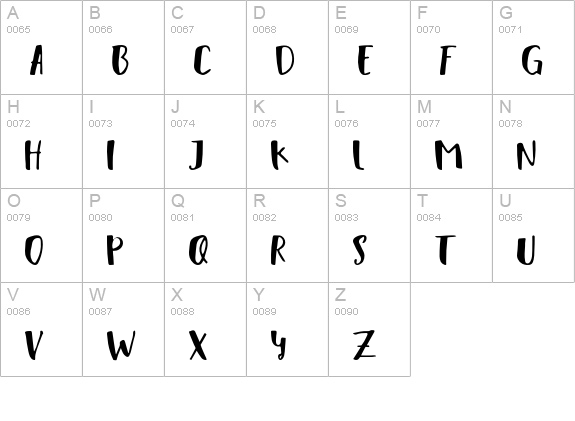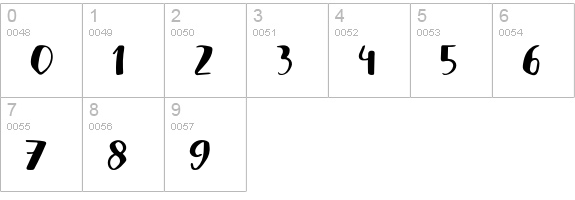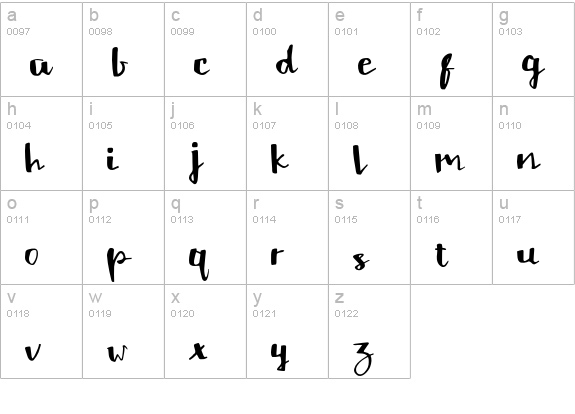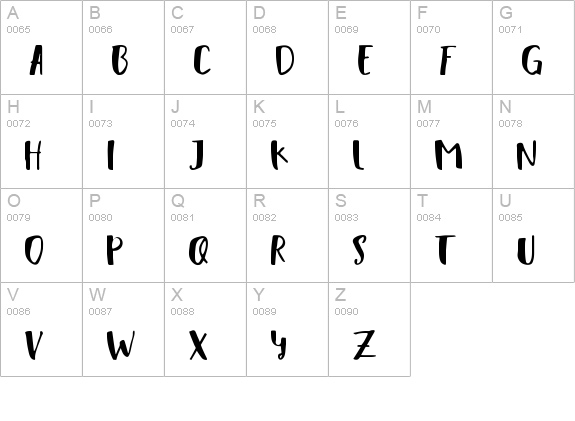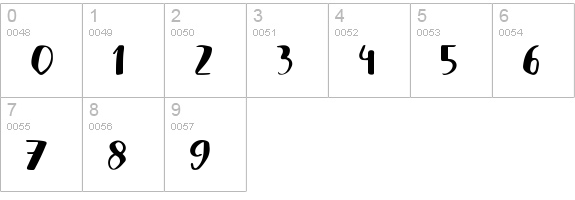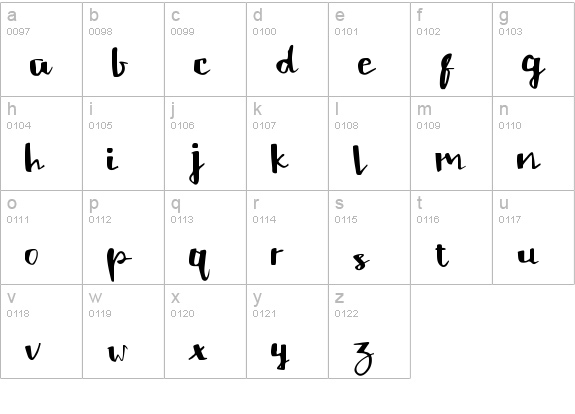
HelloListie Font Details
Introducing HelloListie font, a charming and versatile typeface designed to elevate your projects with a touch of elegance and flair. This beautiful font features delicate curves and stylish details that make it perfect for a wide range of creative endeavors. Whether you're designing invitations, branding materials, or social media graphics, HelloListie font is sure to add a sophisticated and modern touch to your designs. The best part? HelloListie font is available for free download at FontsMarket.com! Now you can easily access this stunning font to enhance your projects without any cost. Don't miss out on the opportunity to elevate your designs with the timeless beauty of HelloListie font. Download it today and let your creativity shine!